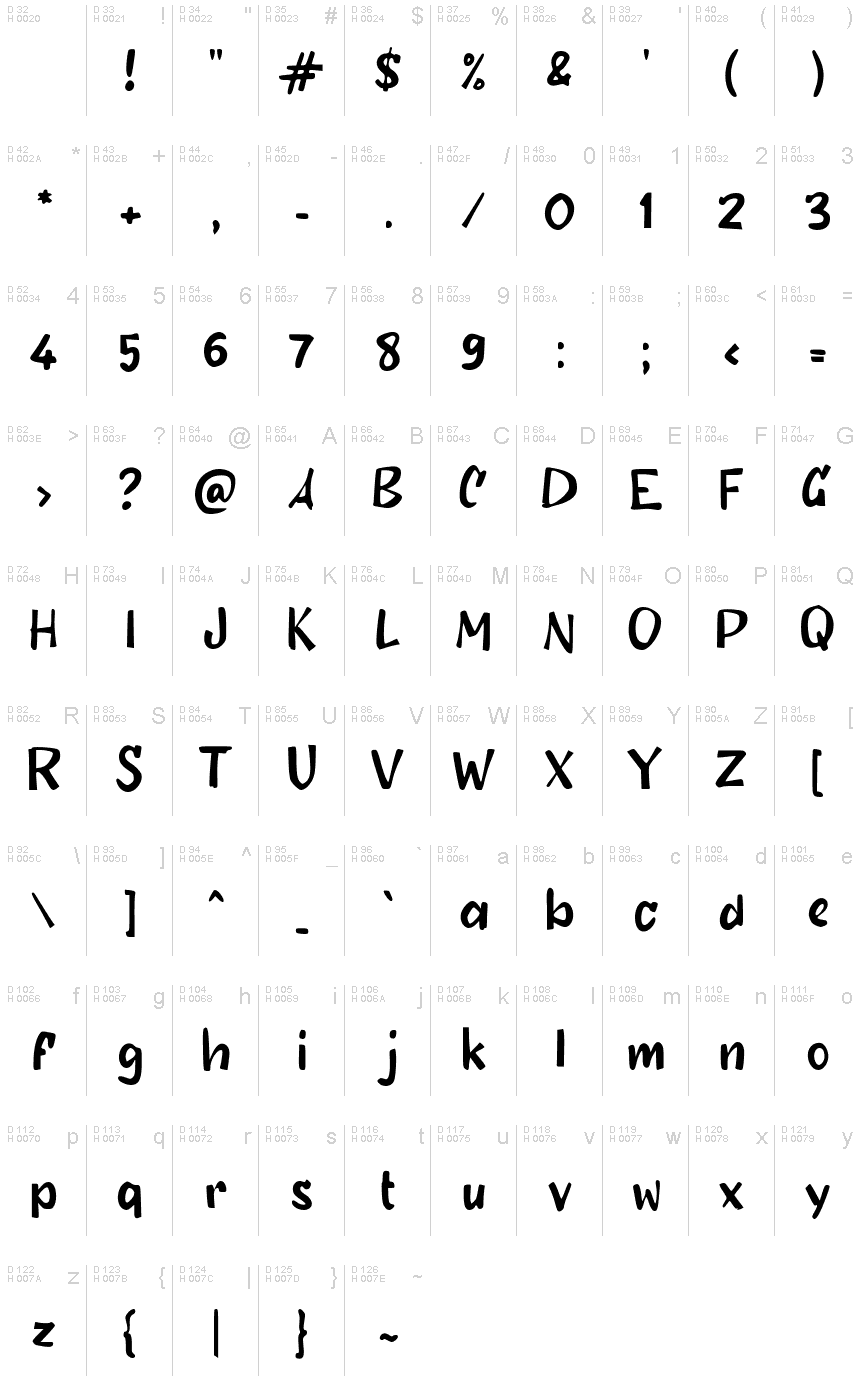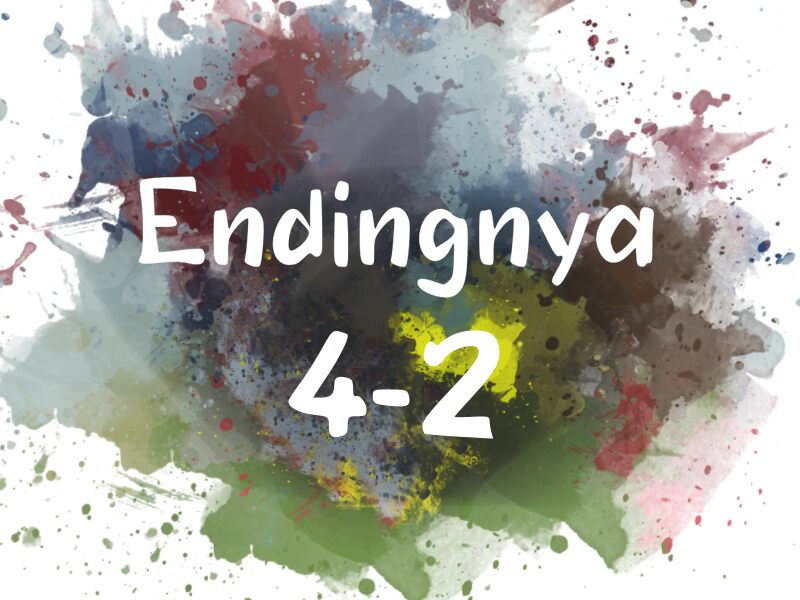
e Endingnya 4-2
Endingnya 4-2 is a playful and quirky font designed by Wahyu Eka Prasetya. With a distinctive comic style, this font is perfect for creating designs that need a fun and light-hearted touch, such as children's books, comic books, and posters. Whether you're looking to add some personality to your brand or create eye-catching graphics, Endingnya 4-2 is a great choice.